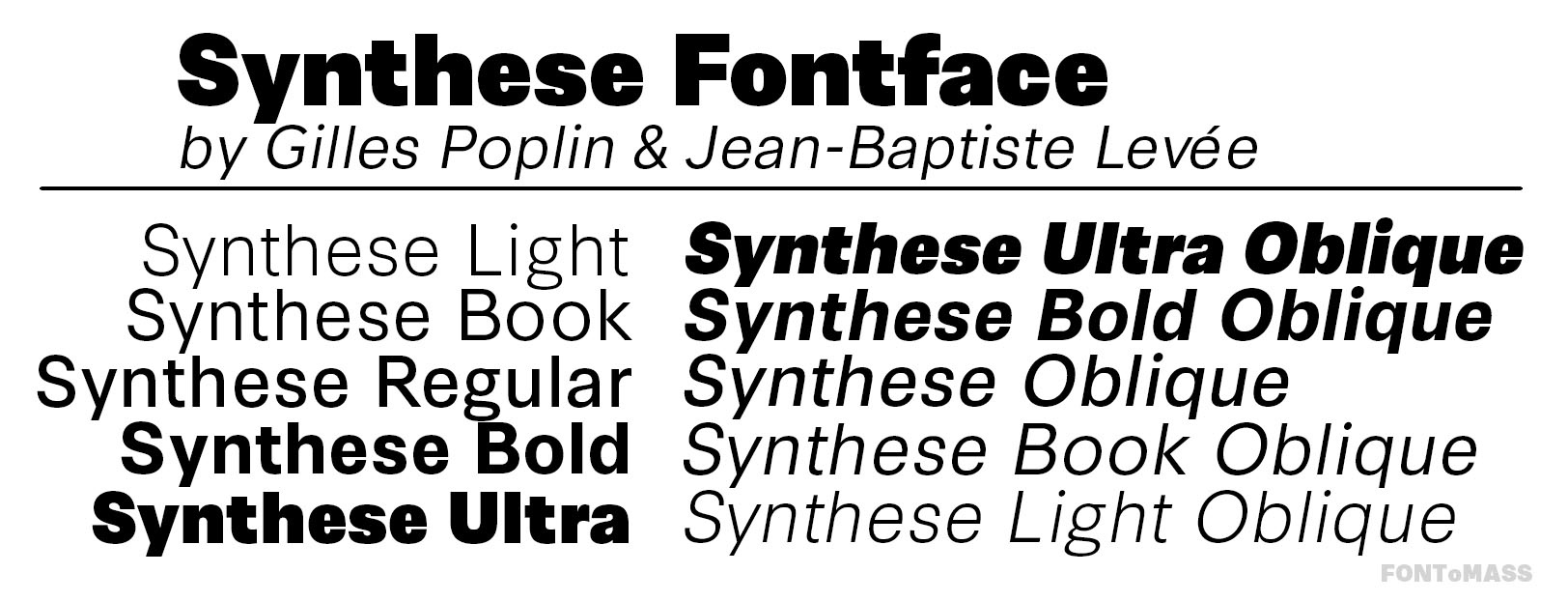
Synthese Font
This futuristic typeface is perfect for technology company branding, electronic music event graphics, sci-fi movie titles, digital product interfaces, cyberpunk-themed designs, innovation conference materials, tech startup presentations, and cutting-edge software applications. Synthese Font delivers striking digital aesthetics in applications where technological advancement and futuristic vision are essential for communicating innovation and next-generation thinking to tech-savvy audiences.
What makes Synthese Font so exciting is its masterful interpretation of digital synthesis and electronic evolution through progressive typography. The font features sleek, geometric letterforms with synthetic characteristics that suggest artificial intelligence and digital transformation. Each character has been precisely engineered to convey technological sophistication while maintaining exceptional screen readability across various digital platforms. The typeface's electronic personality creates immediate associations with innovation and digital futures, making it perfect for brands positioning themselves at the forefront of technological advancement and digital revolution.
The Synthese Font includes dynamic style variations: Regular, Bold, Light, and Grid versions. This technological collection provides designers with versatile tools to create futuristic layouts and establish cutting-edge typographic treatments that capture the essence of digital innovation. Each style maintains the font's inherent modernity while offering different technological emphasis levels for various digital applications and futuristic design contexts.
Whether you're developing tech startup identities, creating electronic music branding, or designing innovative digital campaigns, Synthese Font Free Download delivers the futuristic aesthetic that resonates with forward-thinking audiences and technology enthusiasts. Its progressive character makes it particularly suitable for software companies, electronic artists, innovation labs, and digital transformation consultancies. The font's technological presence ensures maximum impact in both digital interfaces and tech marketing applications, while its versatile design adapts perfectly to cyberpunk, minimal, and high-tech aesthetic approaches.
This revolutionary typeface represents the perfect choice for designers who understand the power of futuristic typography in creating authentic connections with technology-driven audiences and digital innovation communities.